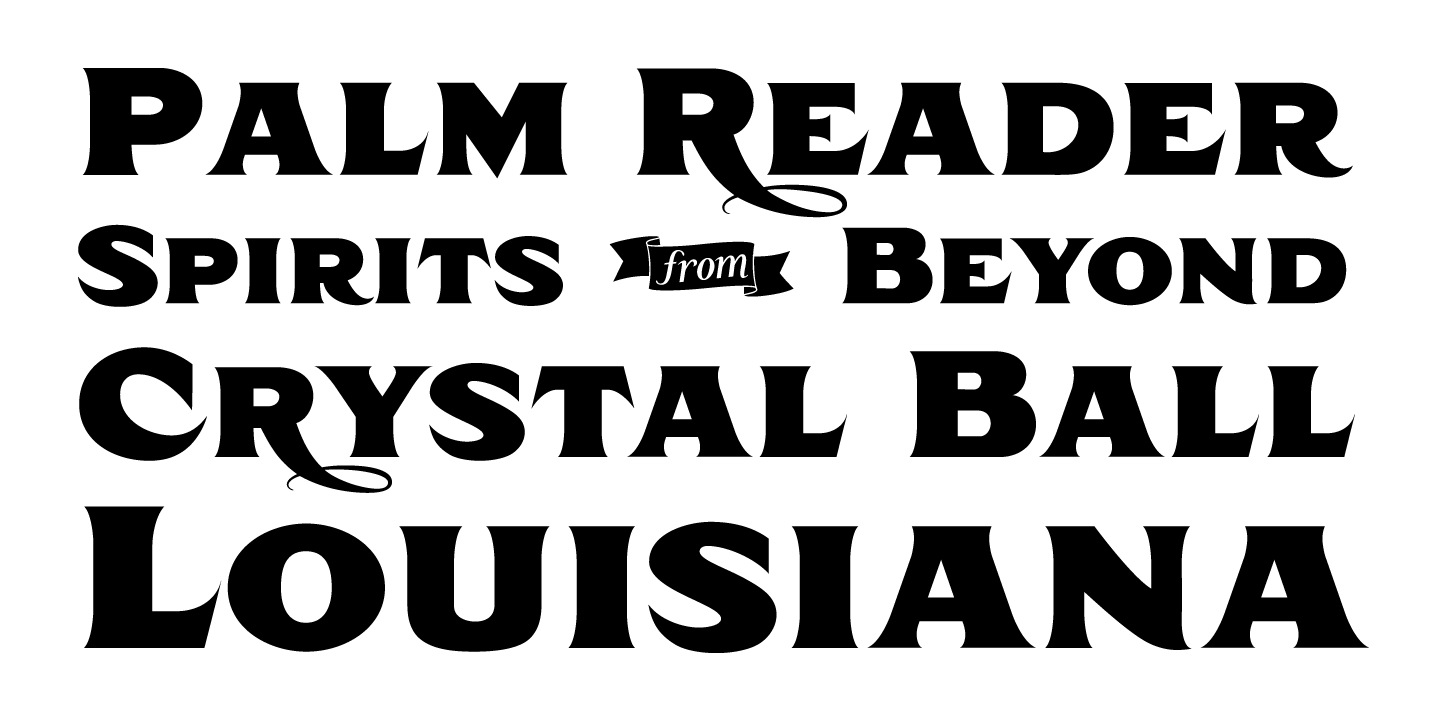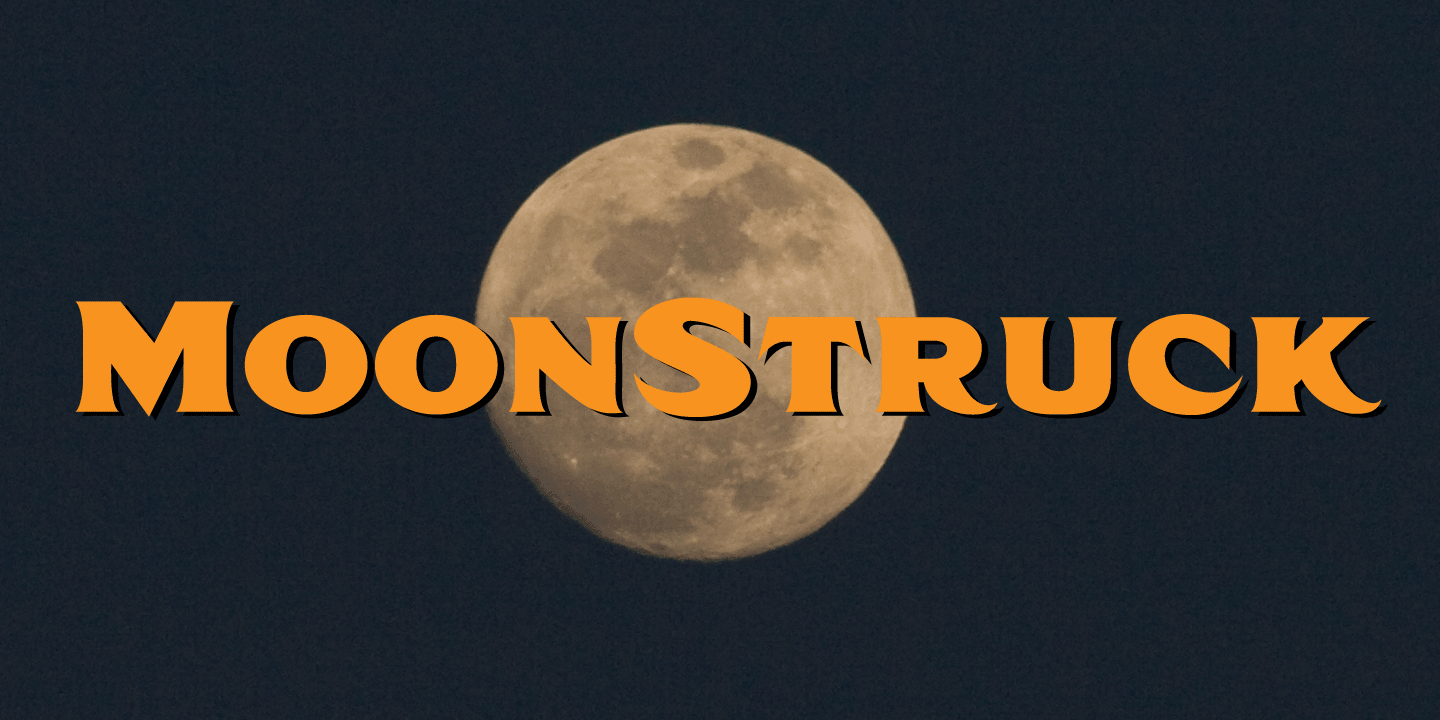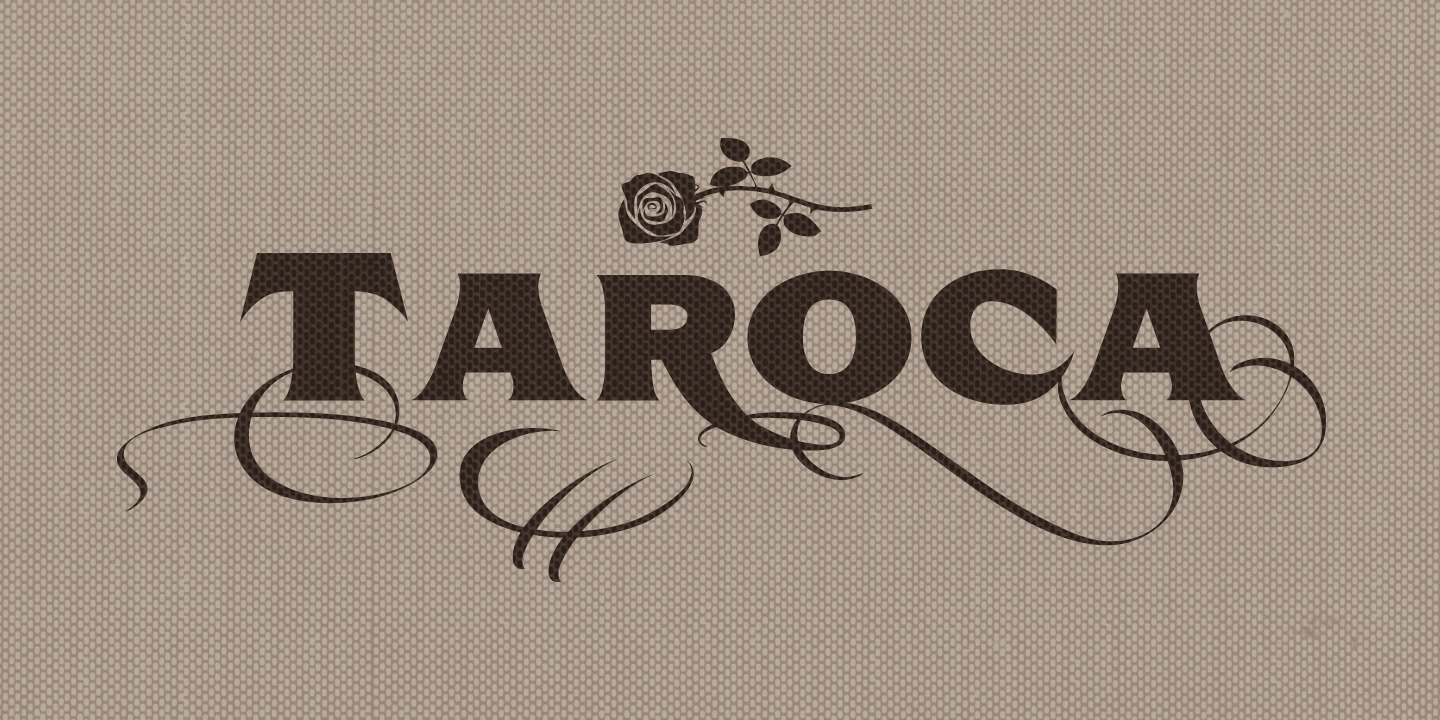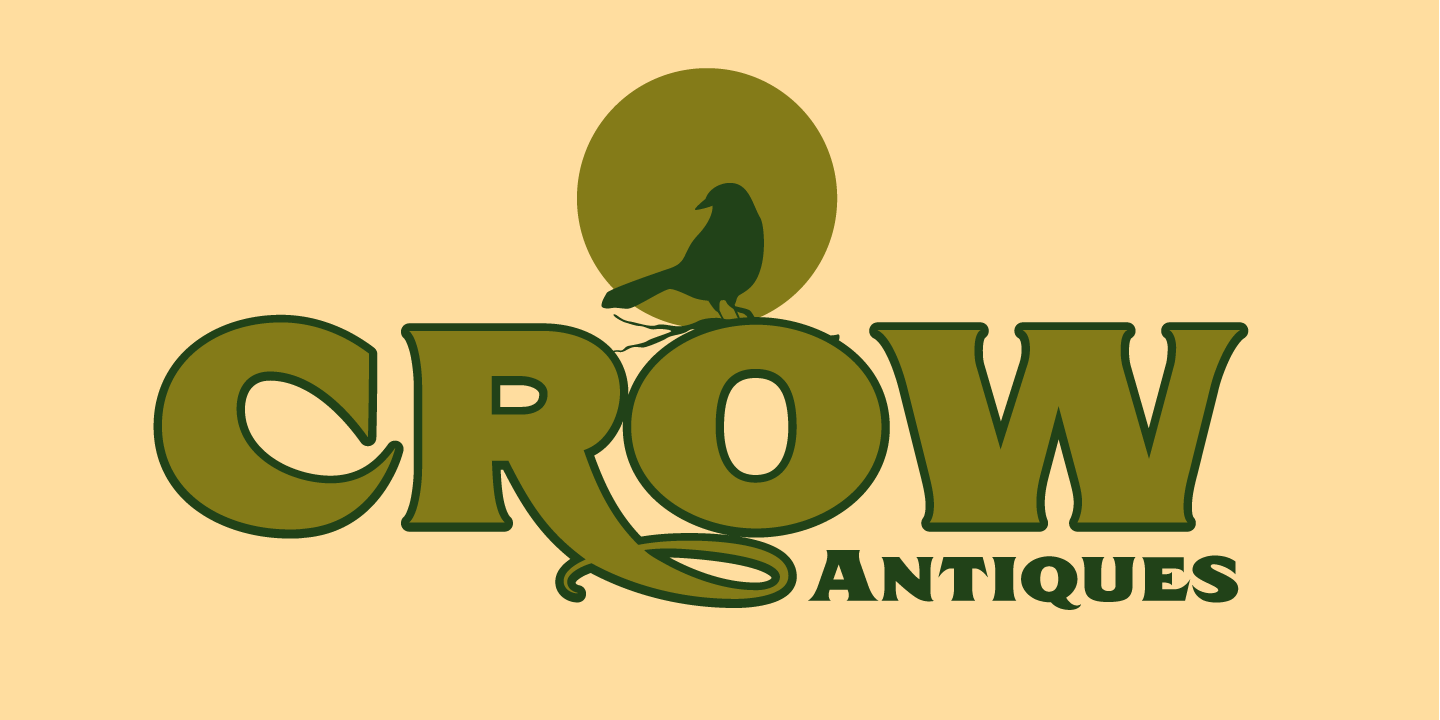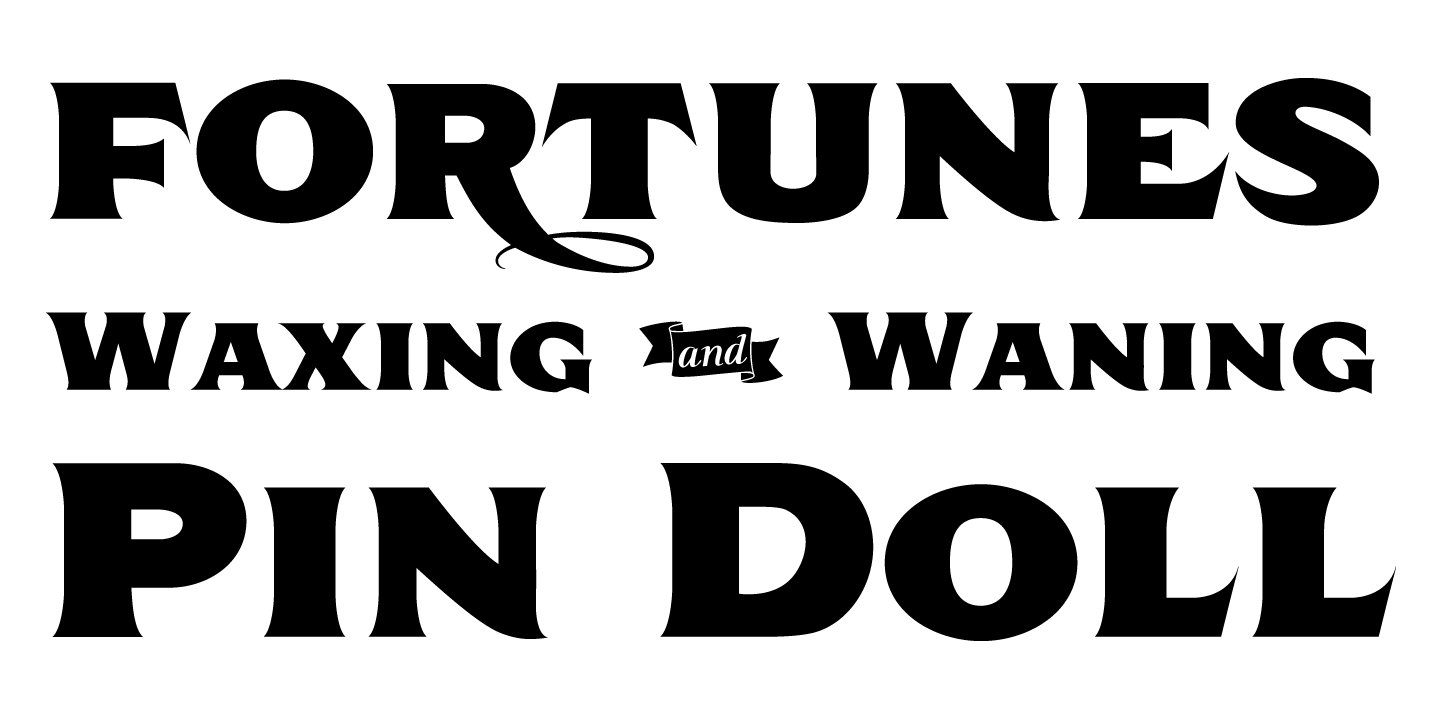
Taroca
About Taroca
Come my child and sit down. Let me look into my crystal ball. Ahh yes! I see a very beautiful font in your future! Taroca pronounced (Tah-Row-Kuh) is a word derived from the Italian word for Tarot. The Taroca font invokes the spirit of the travelling…